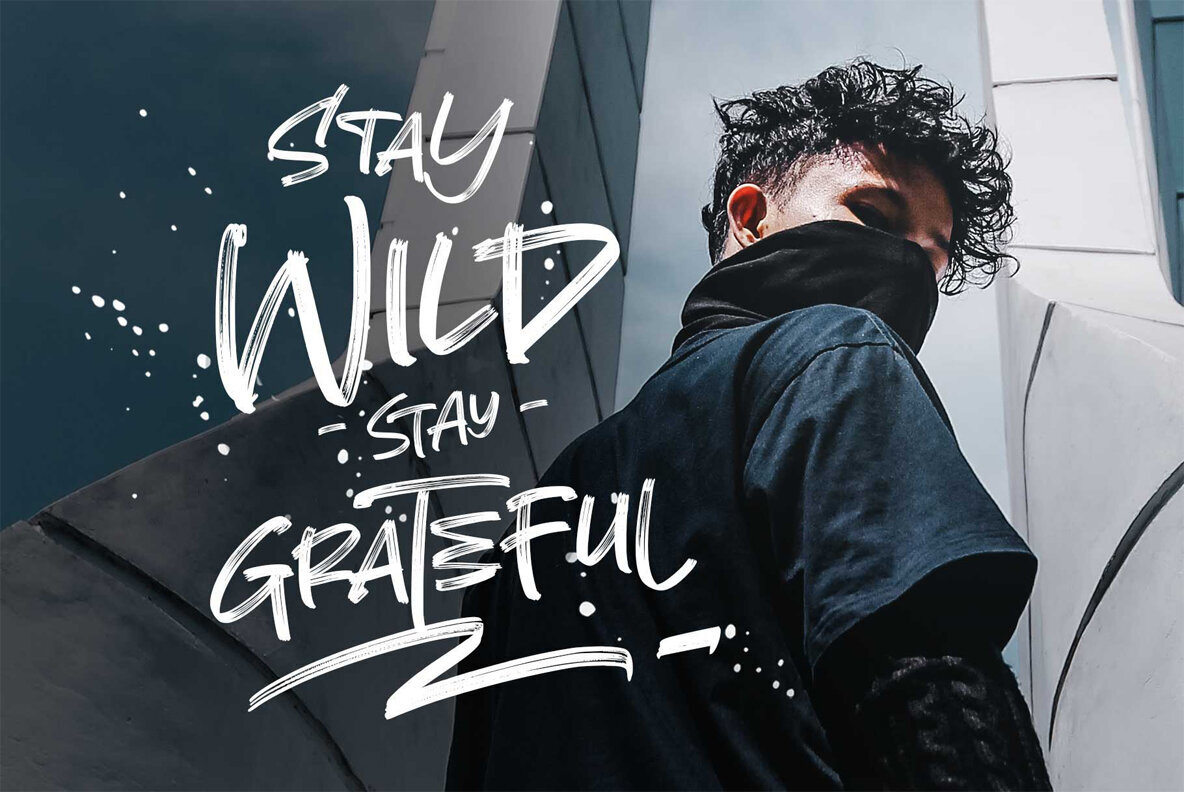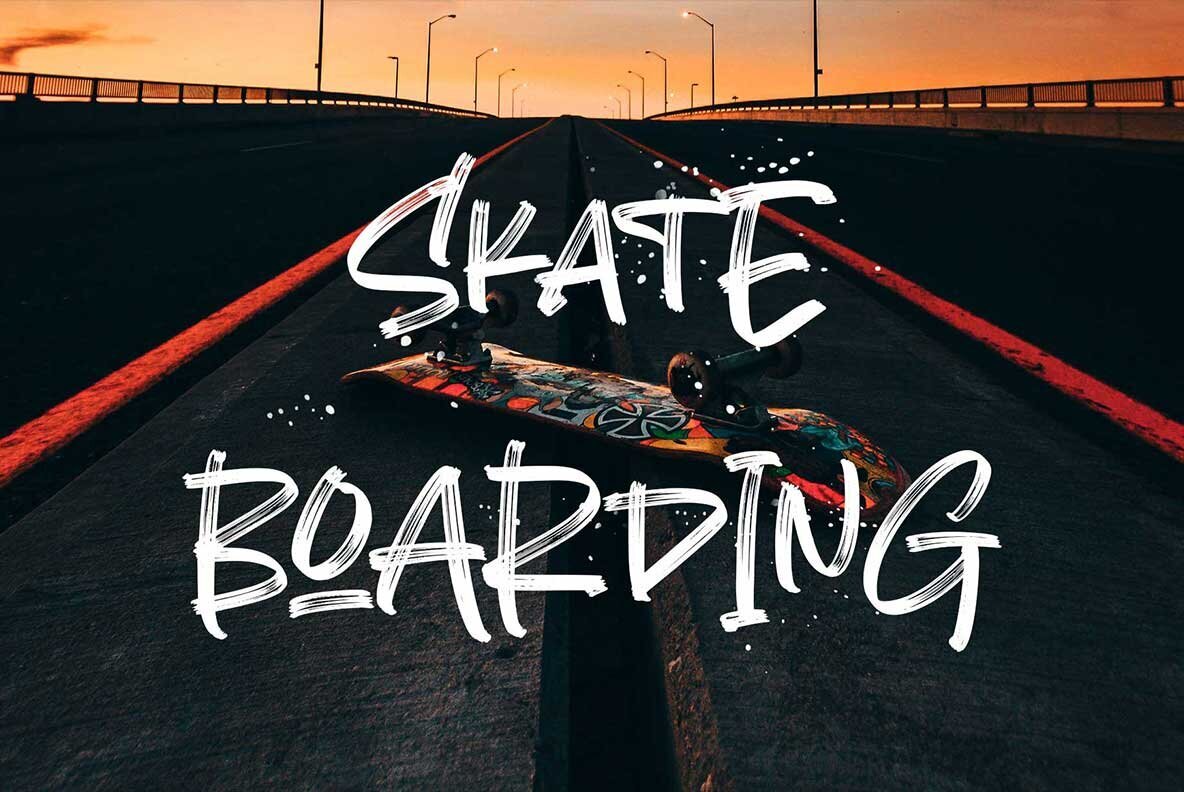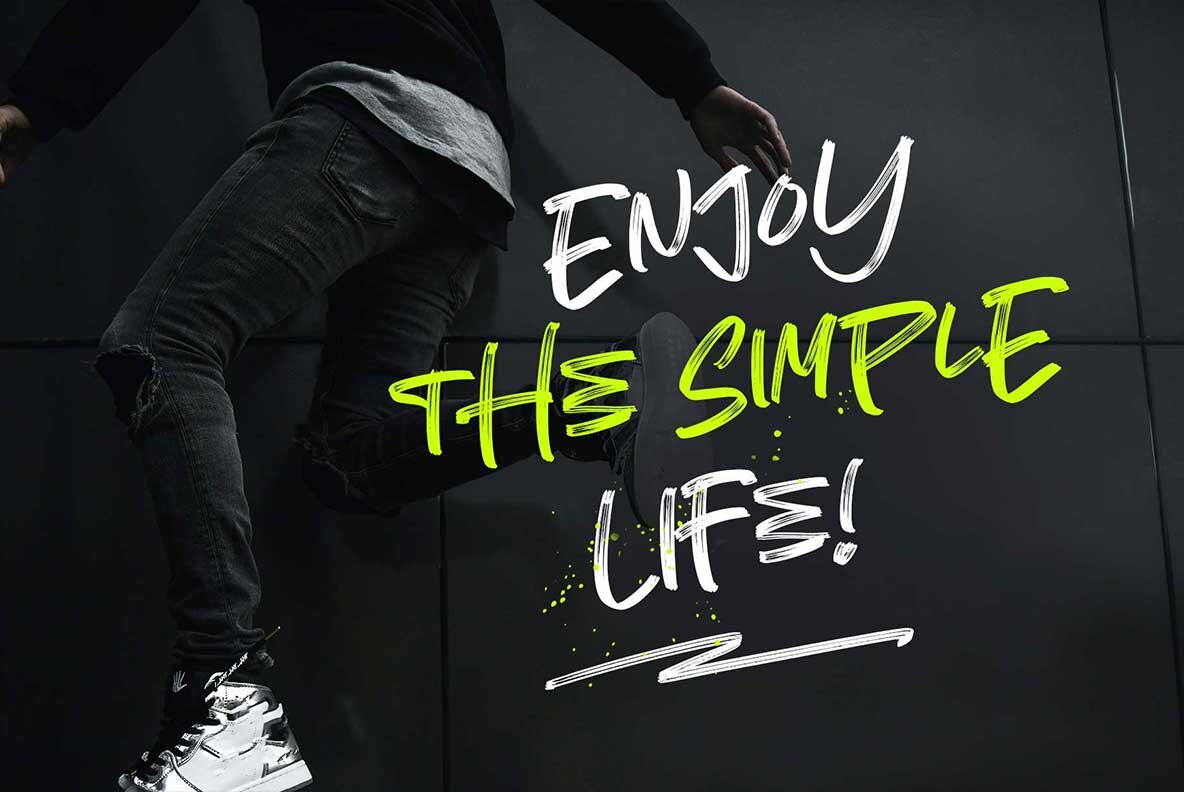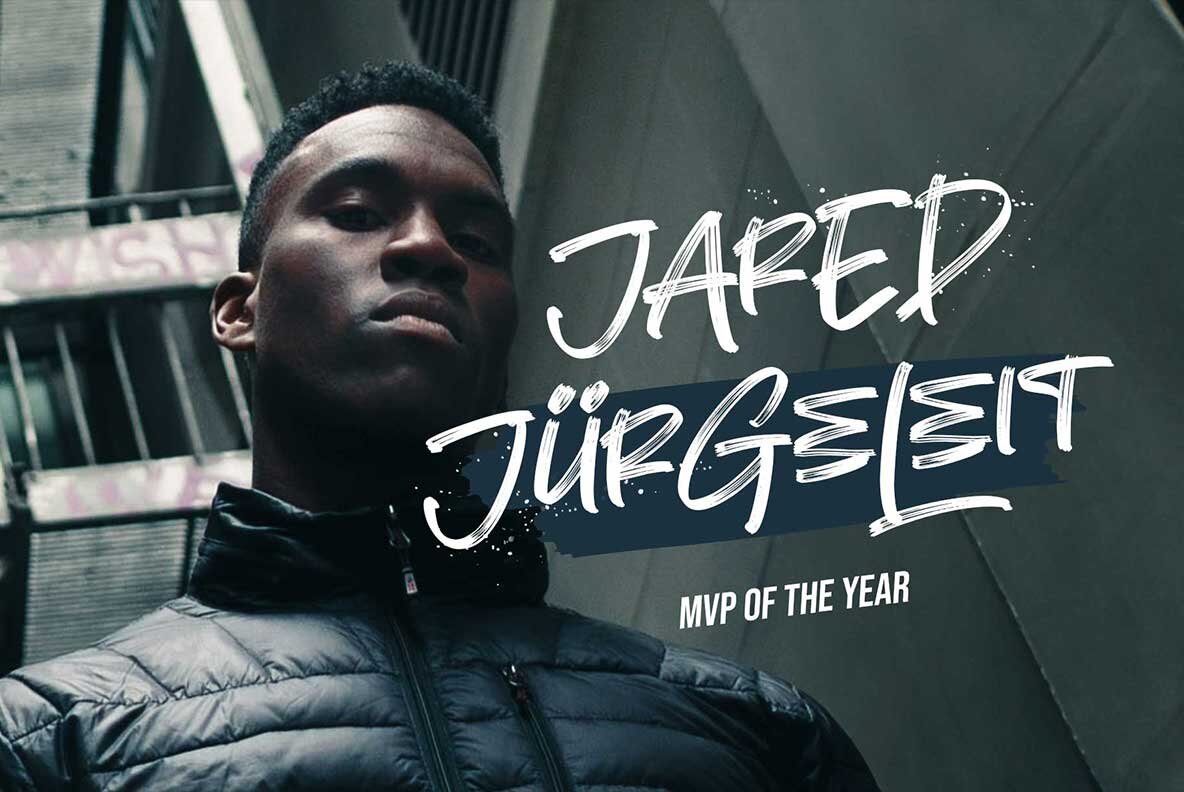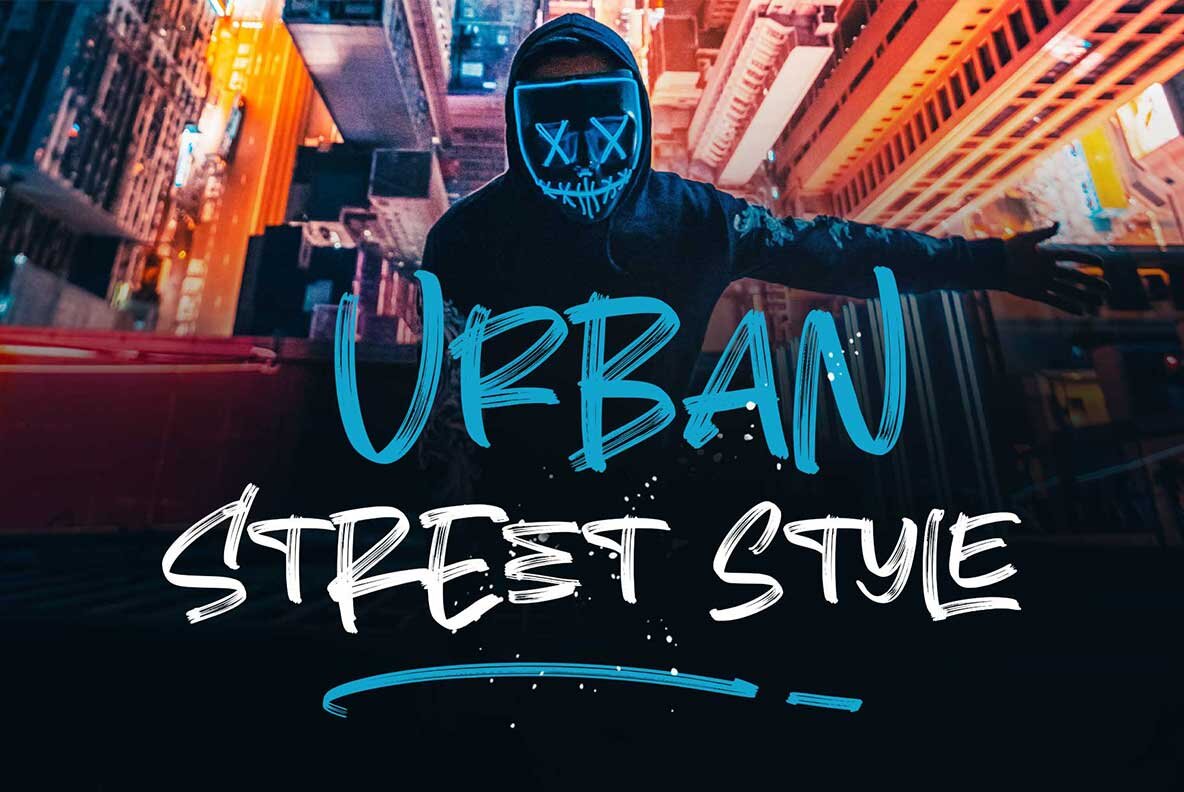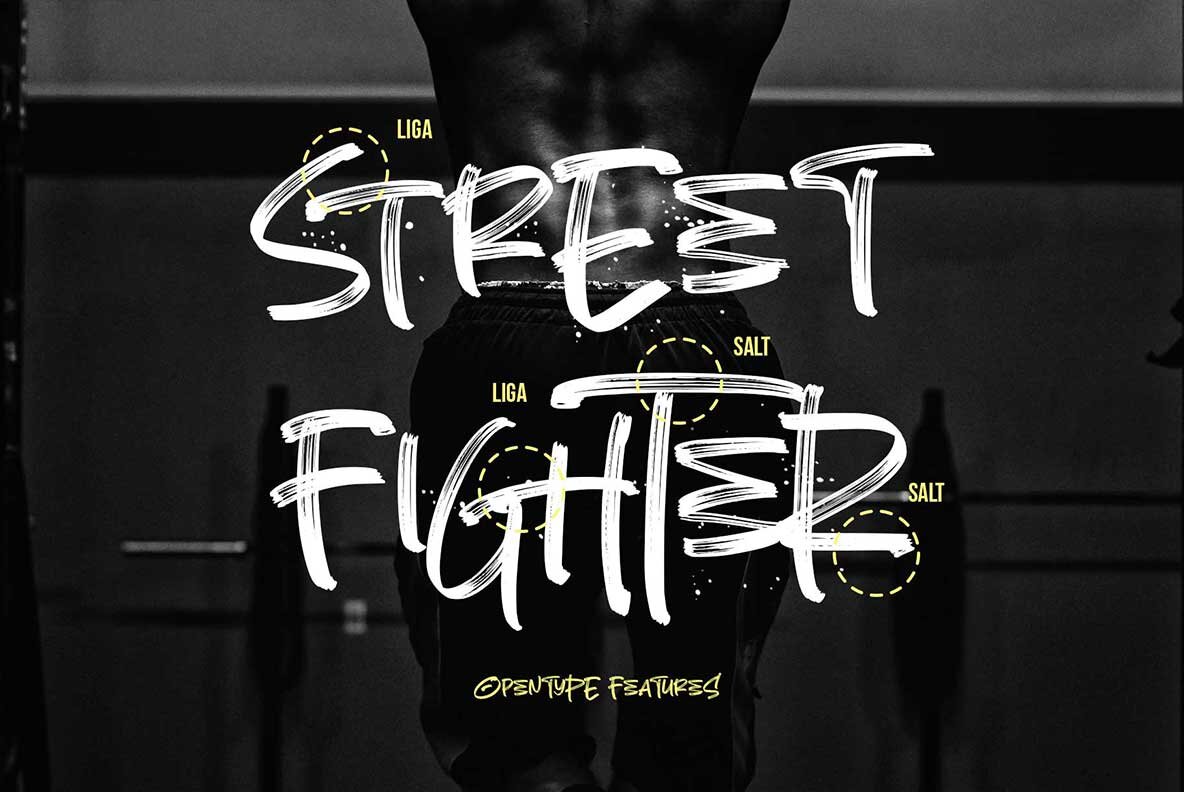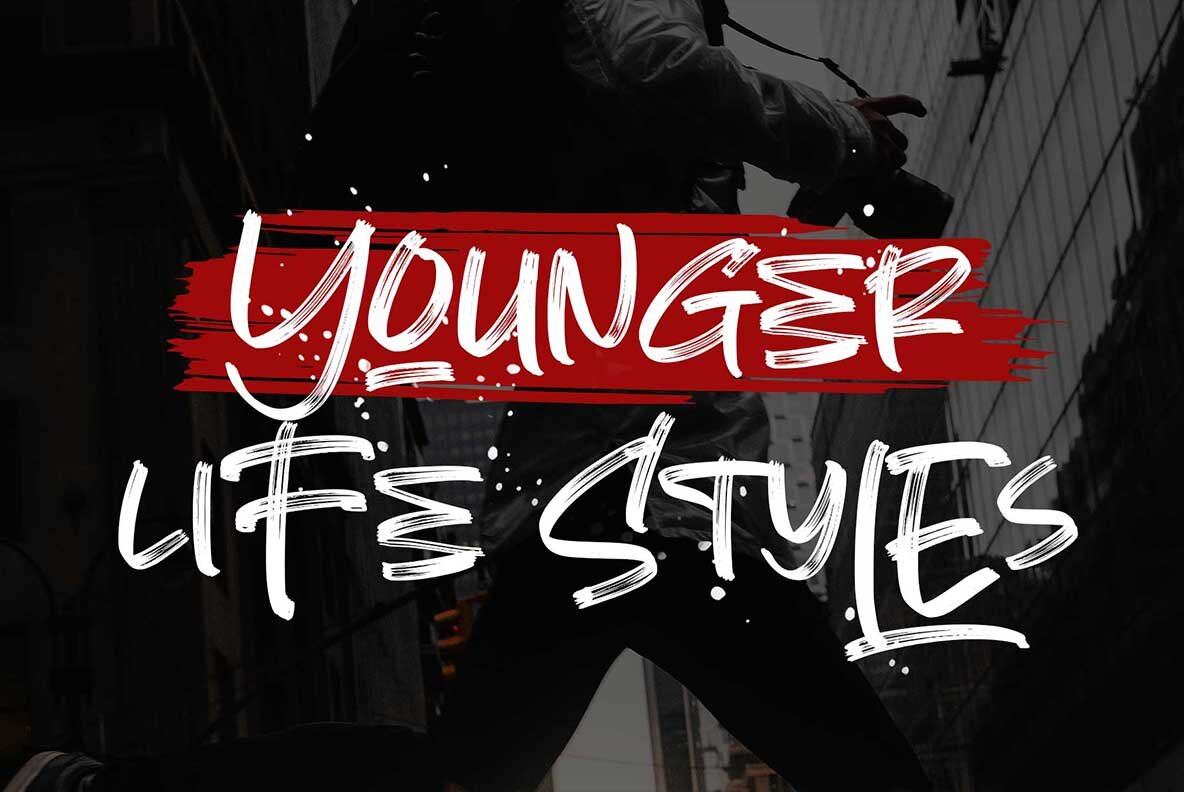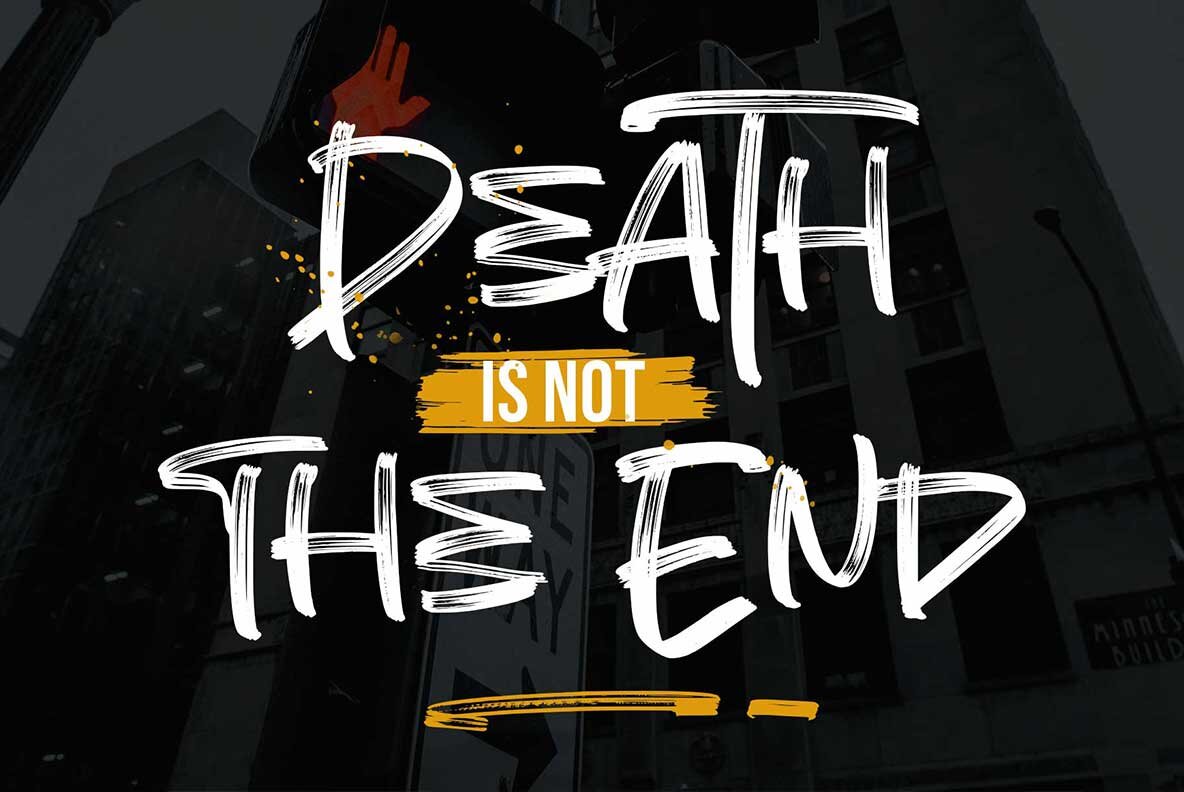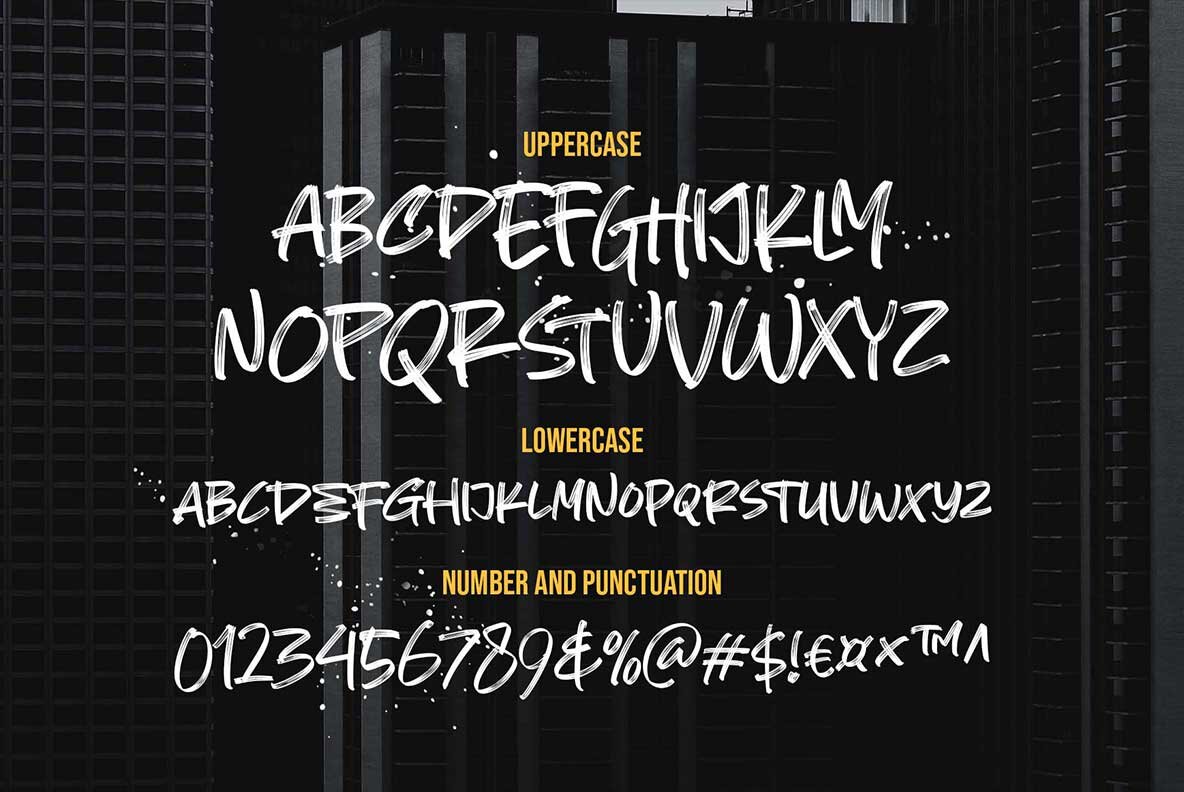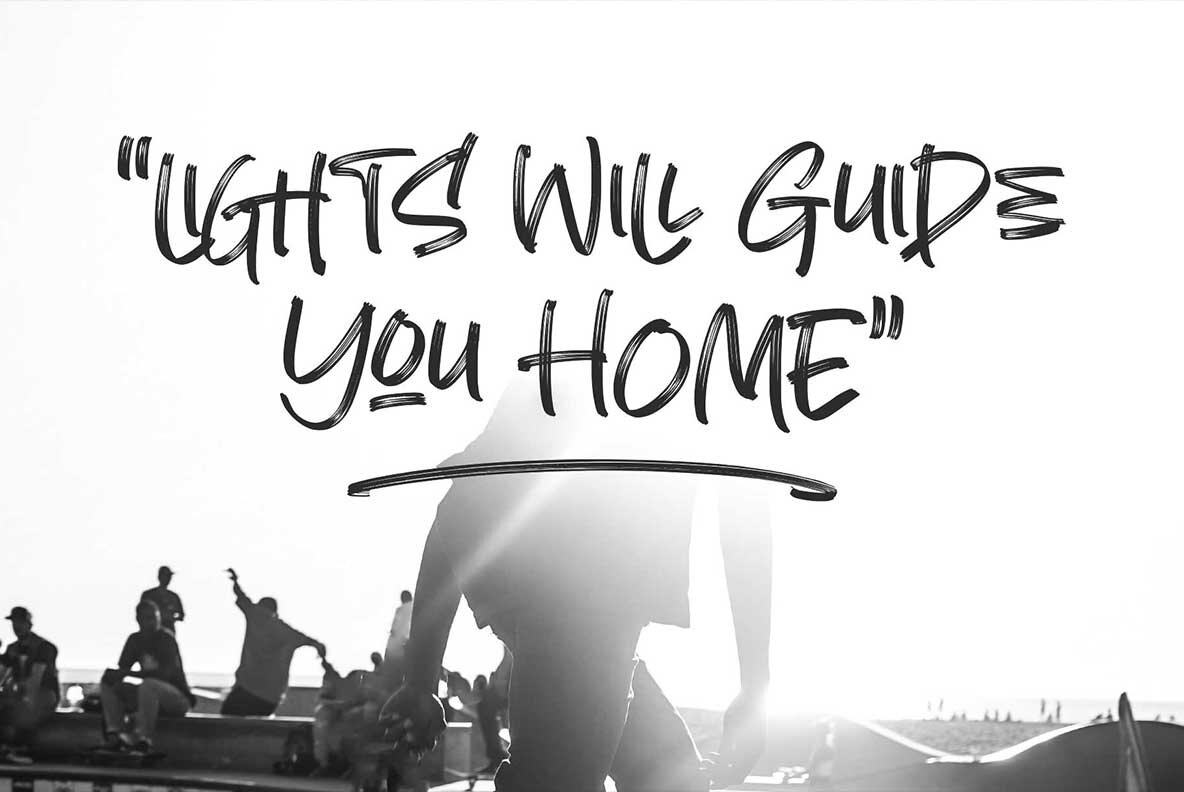
Monster Grande Font
Monster Grande Regular
Discover the assertive style of Monster Grande, a hand-drawn typeface known for its impressive texture. With an urban flair and a dry marker effect, this all-caps font delivers an energetic and trendy look. Monster Grande stands out with its unique design, fitting seamlessly into various themes such as sport, urban, pop, underground, futuristic, or contemporary styles. Its stylistic alternates and numerous ligatures add a realistic handwritten feel to your designs. Enjoy the creative freedom that comes with this freestyle font!Monster Grande: Bold Hand-Drawn Typeface
Distinctive Design Features
Versatile Font Features